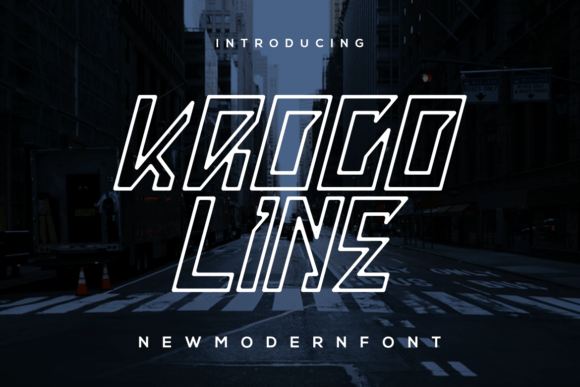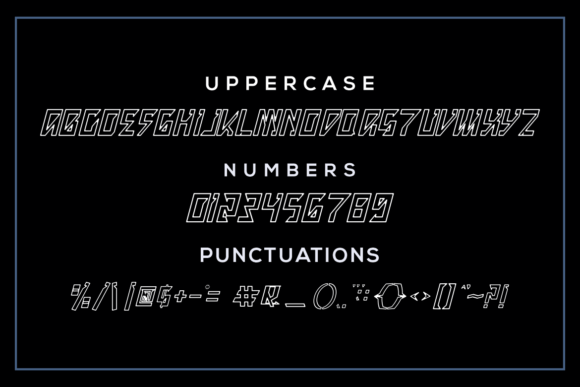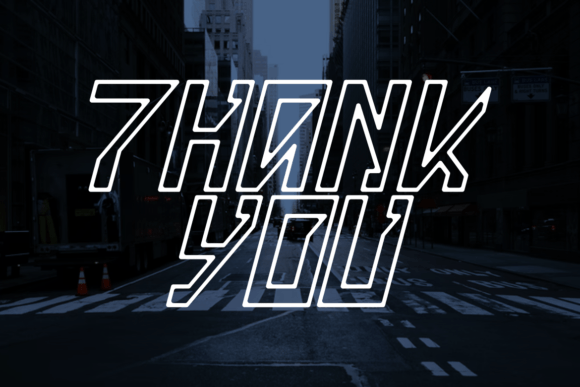
Introduction to Kroco Line Font
Kroco Line is a cool and modern display font.
Add it confidently to your projects and you will love the results .
Key Features of Kroco Line Font
Why Choose Kroco Line Font?
Kroco Line Font offers exceptional quality and versatility, making it a valuable addition to your design toolkit. Whether you’re creating for personal projects or commercial use, Kroco Line Font delivers professional results.